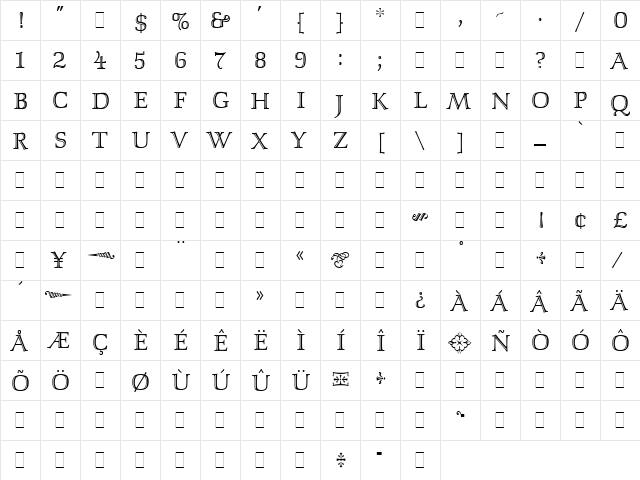
Isis LET Regular
Design Context for Isis LET Typeface
Isis LET offers clean, dependable letterforms without strong stylistic allegiance, making it a practical choice for designers who need flexibility.